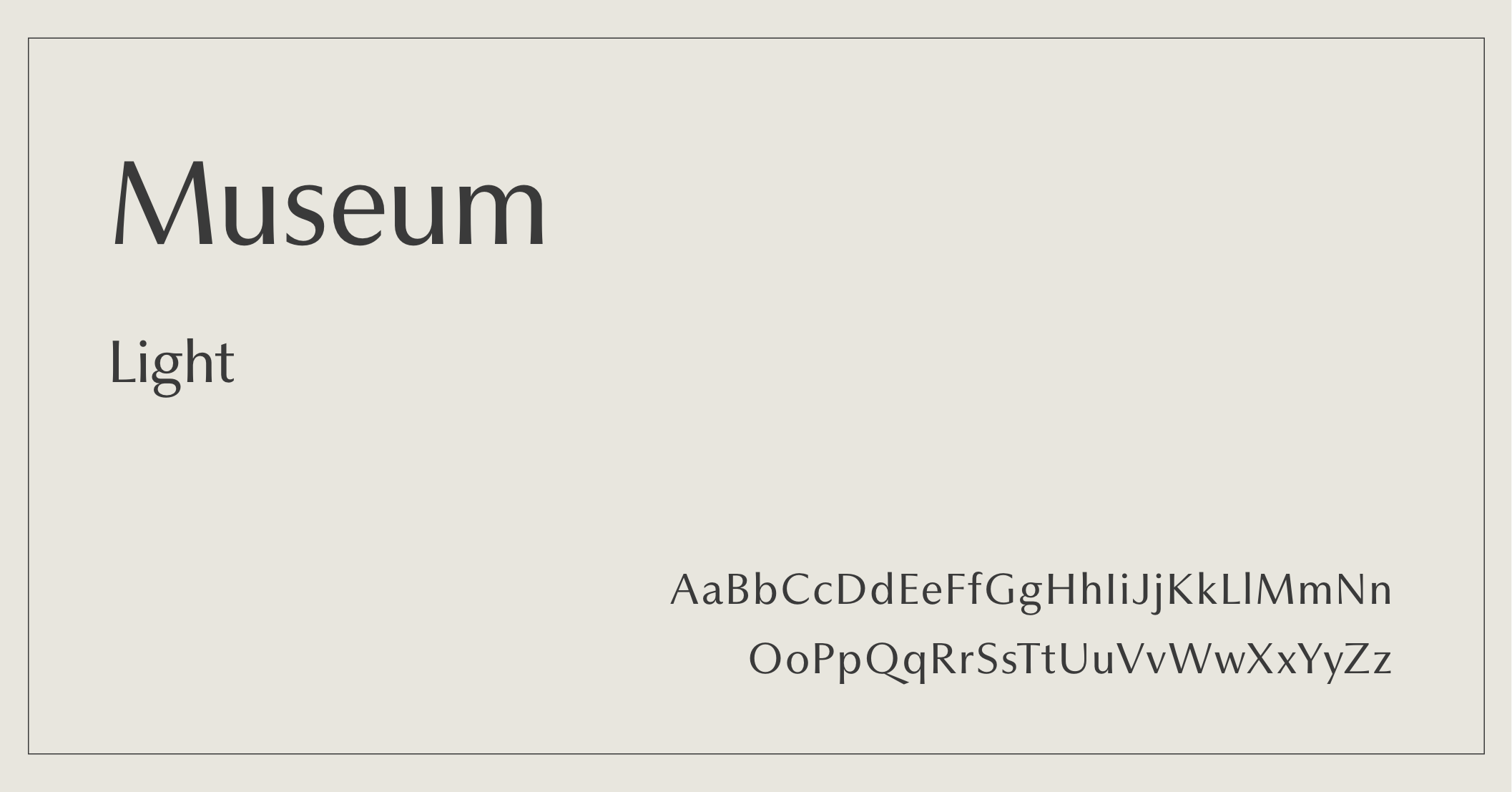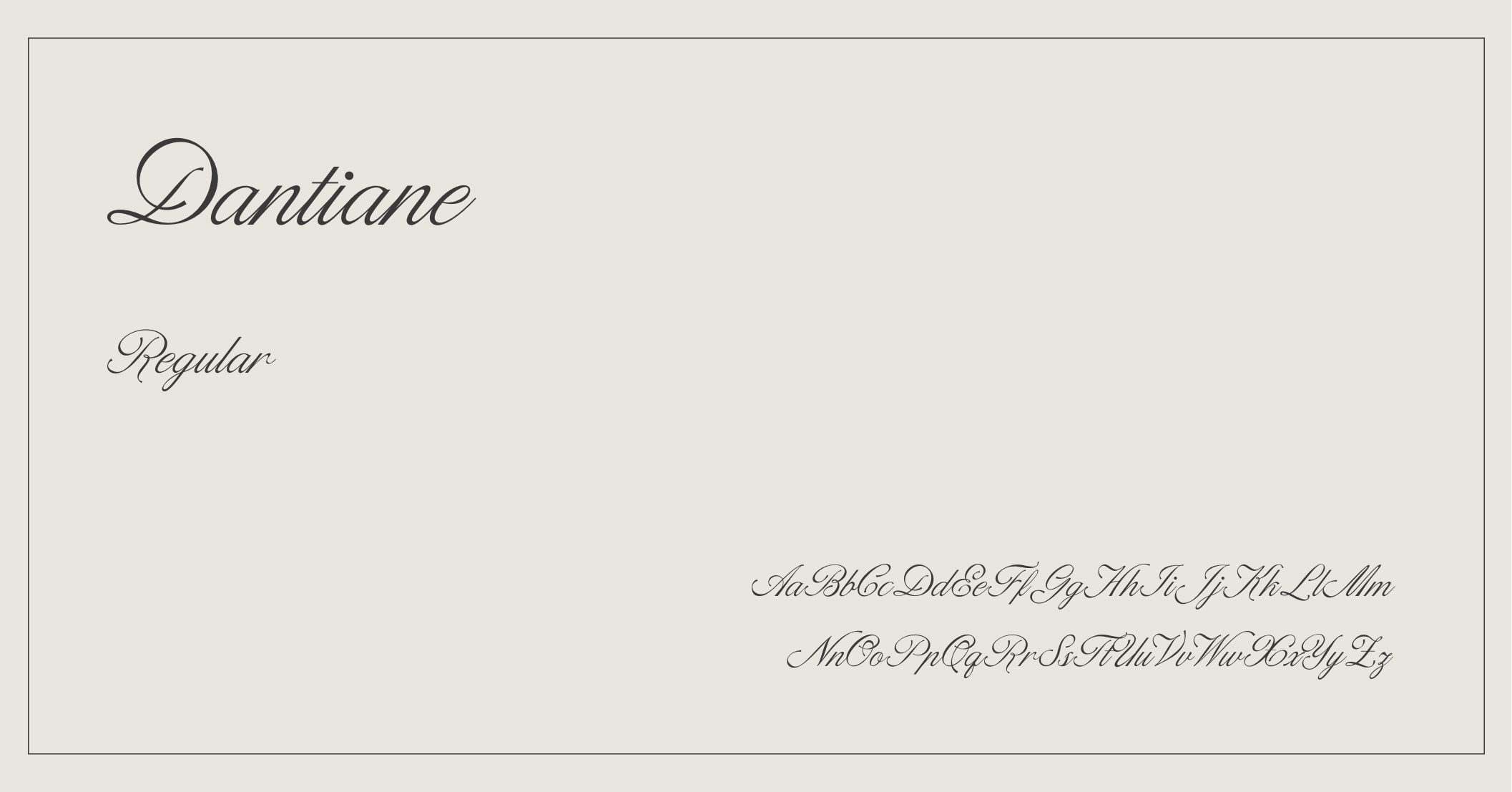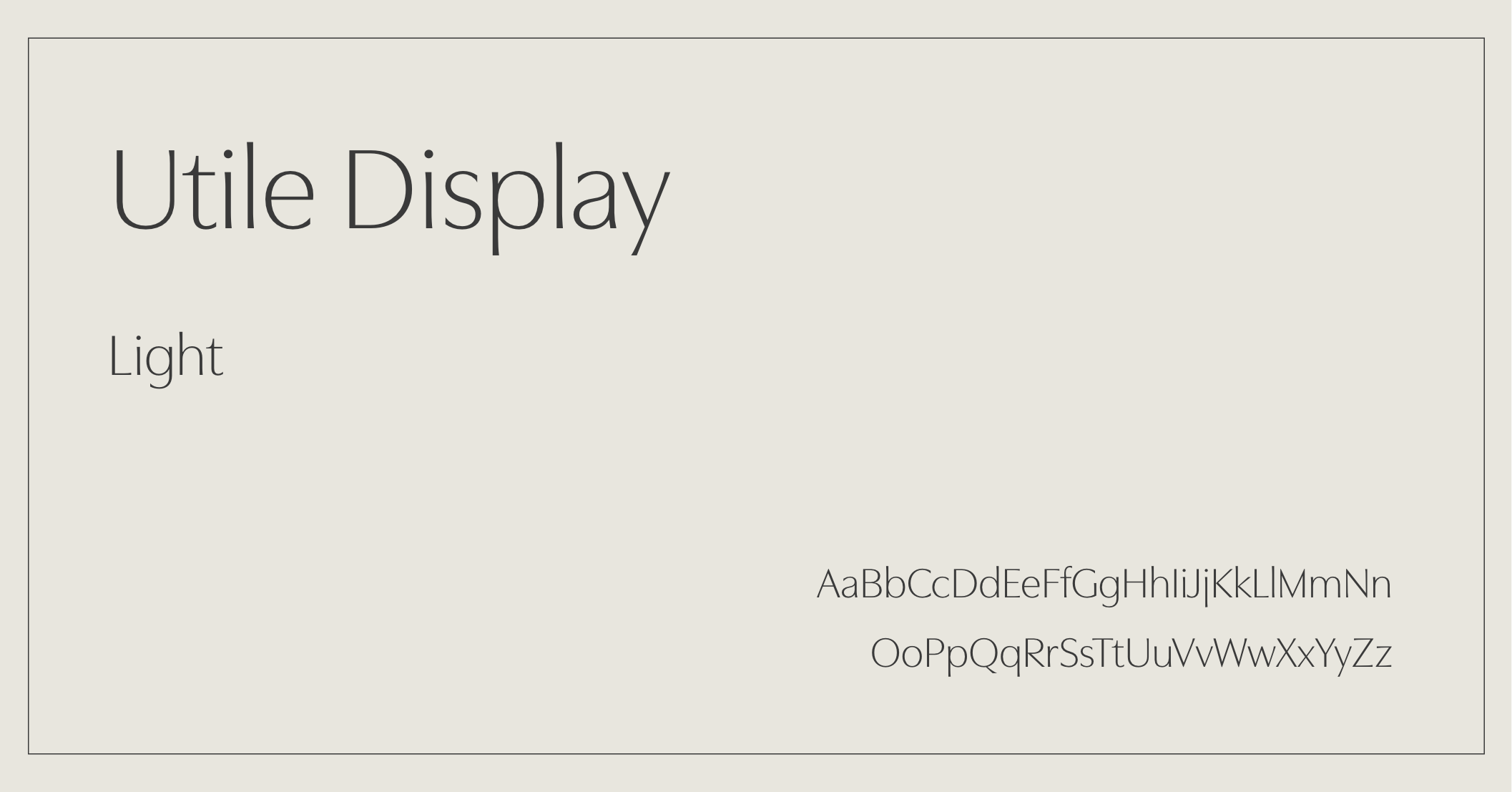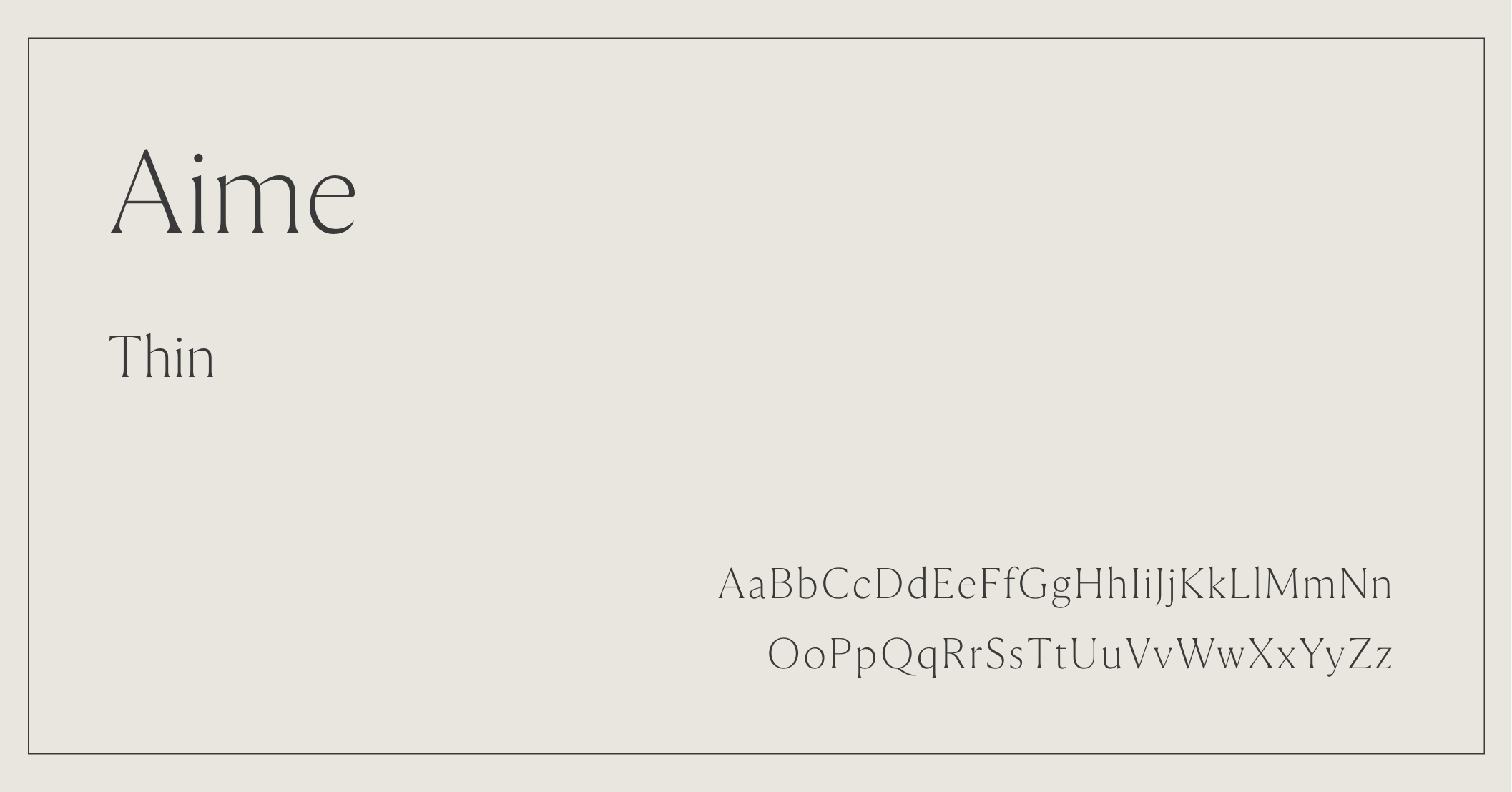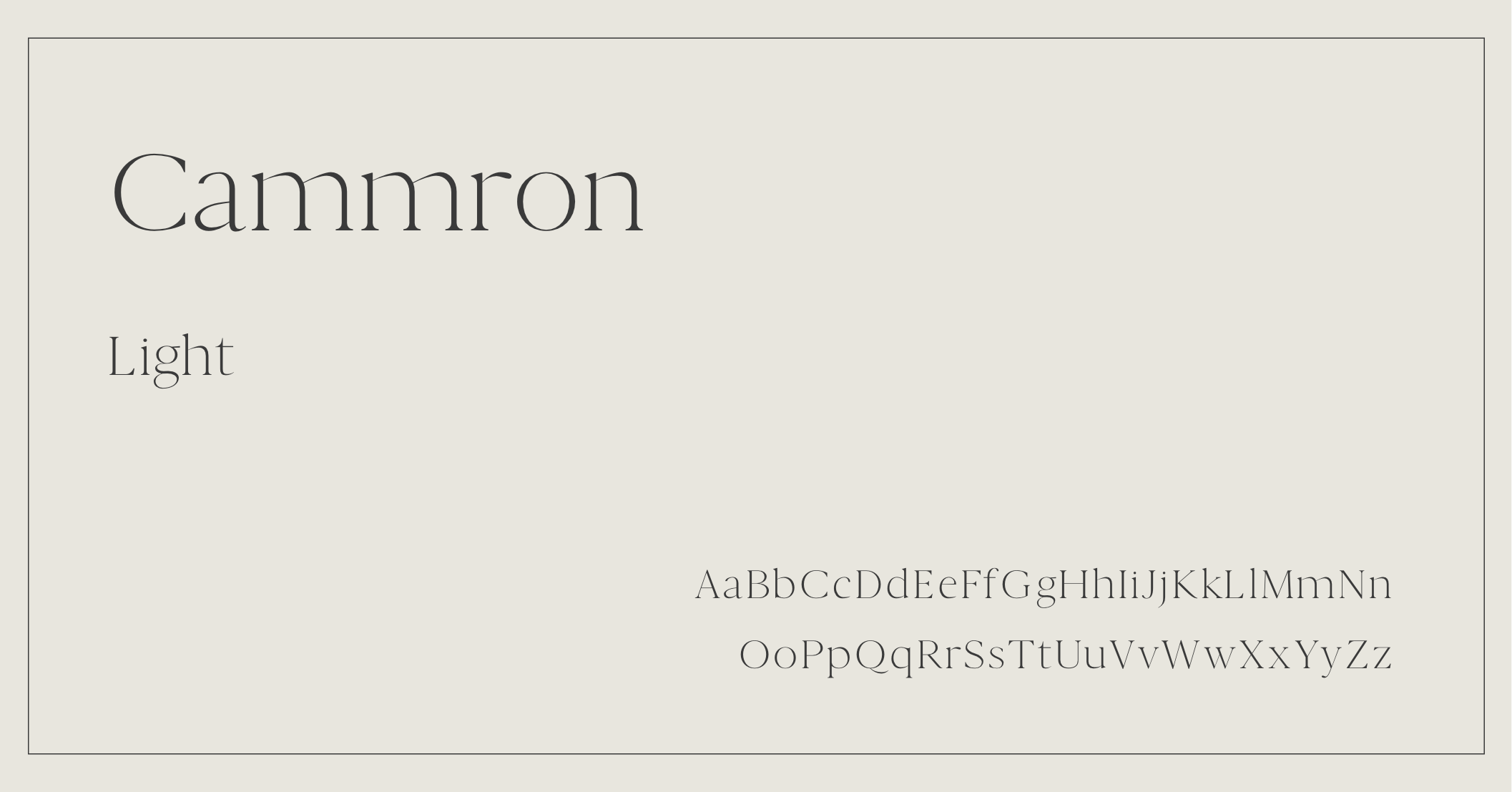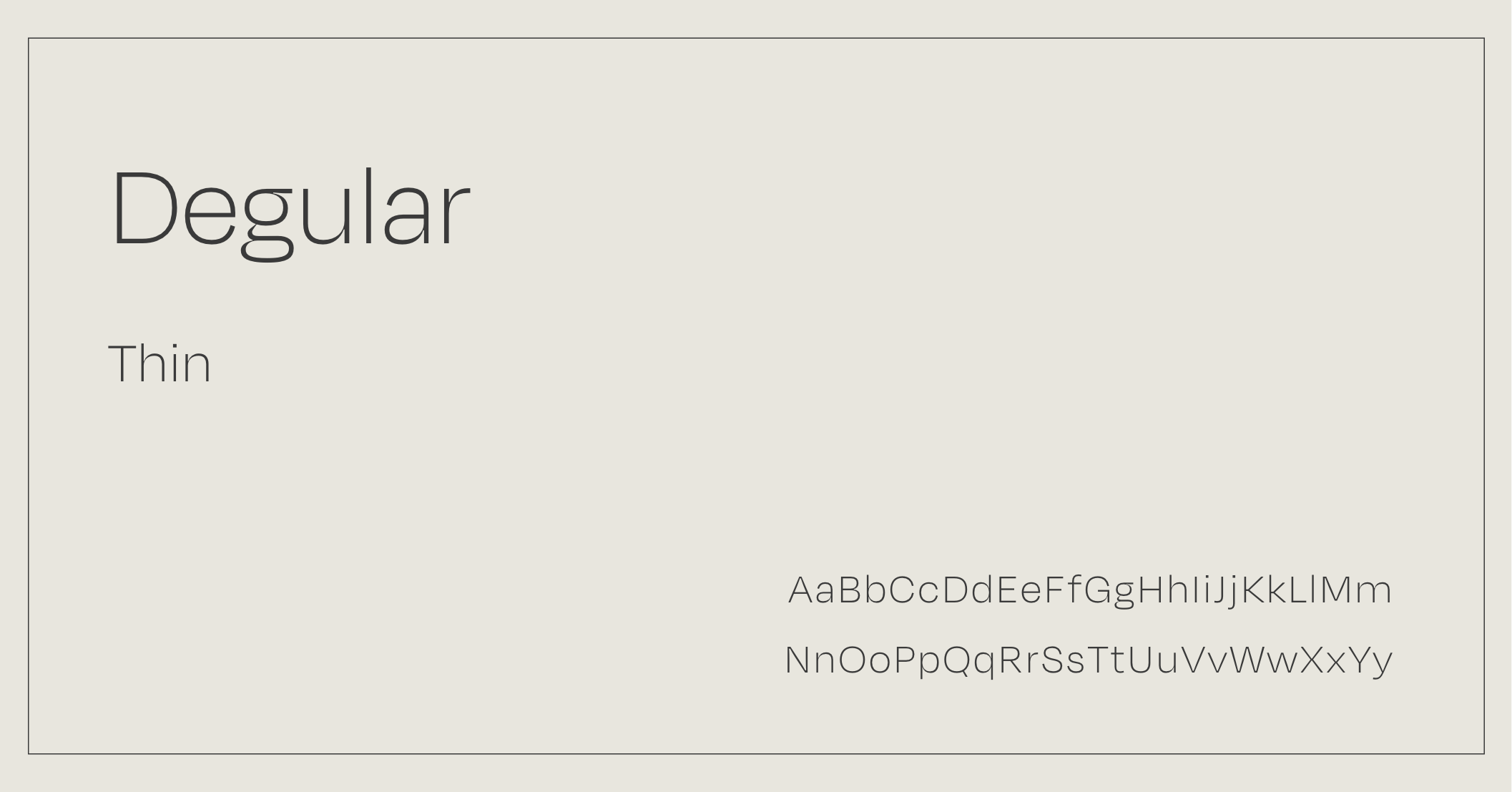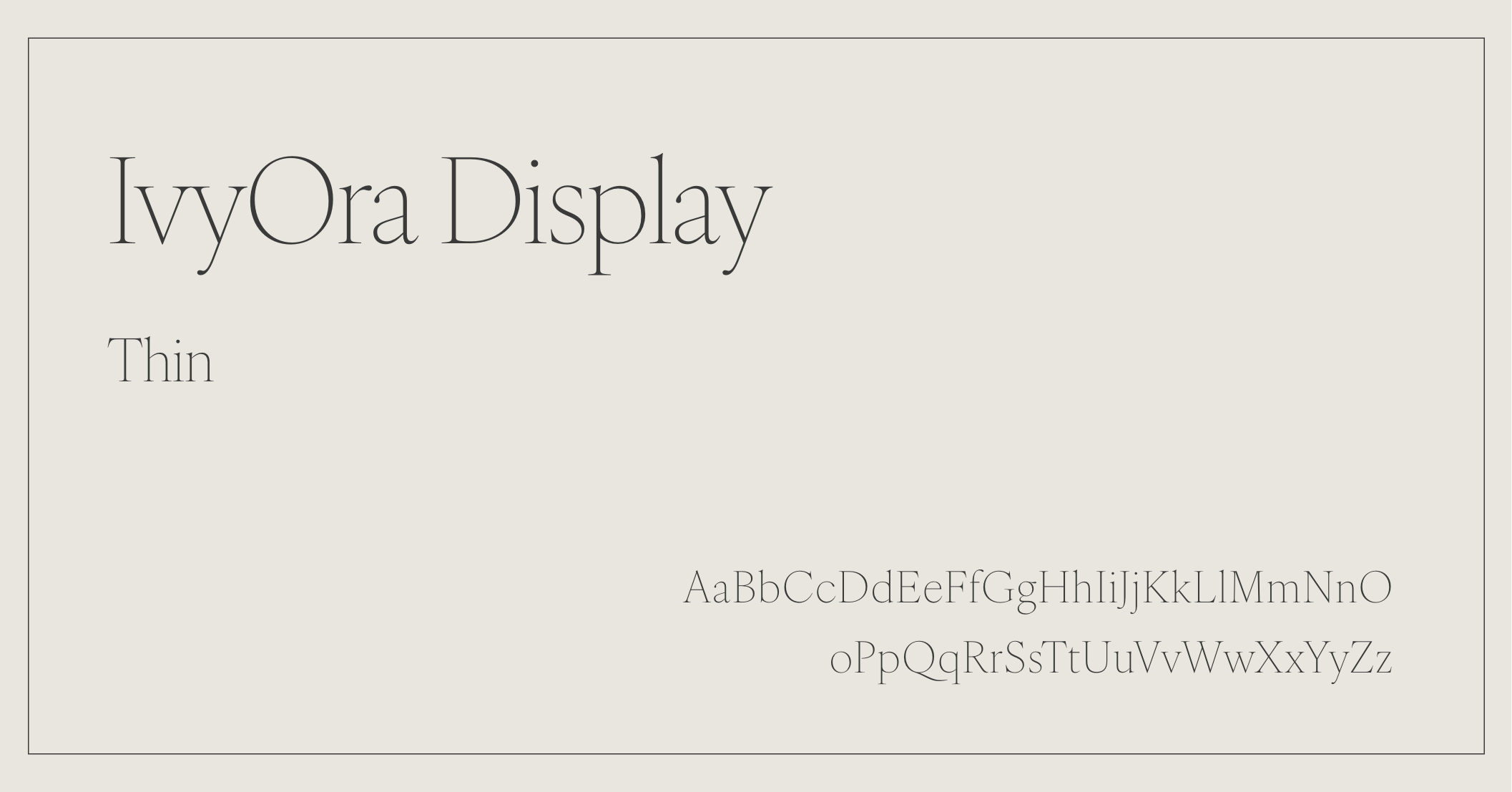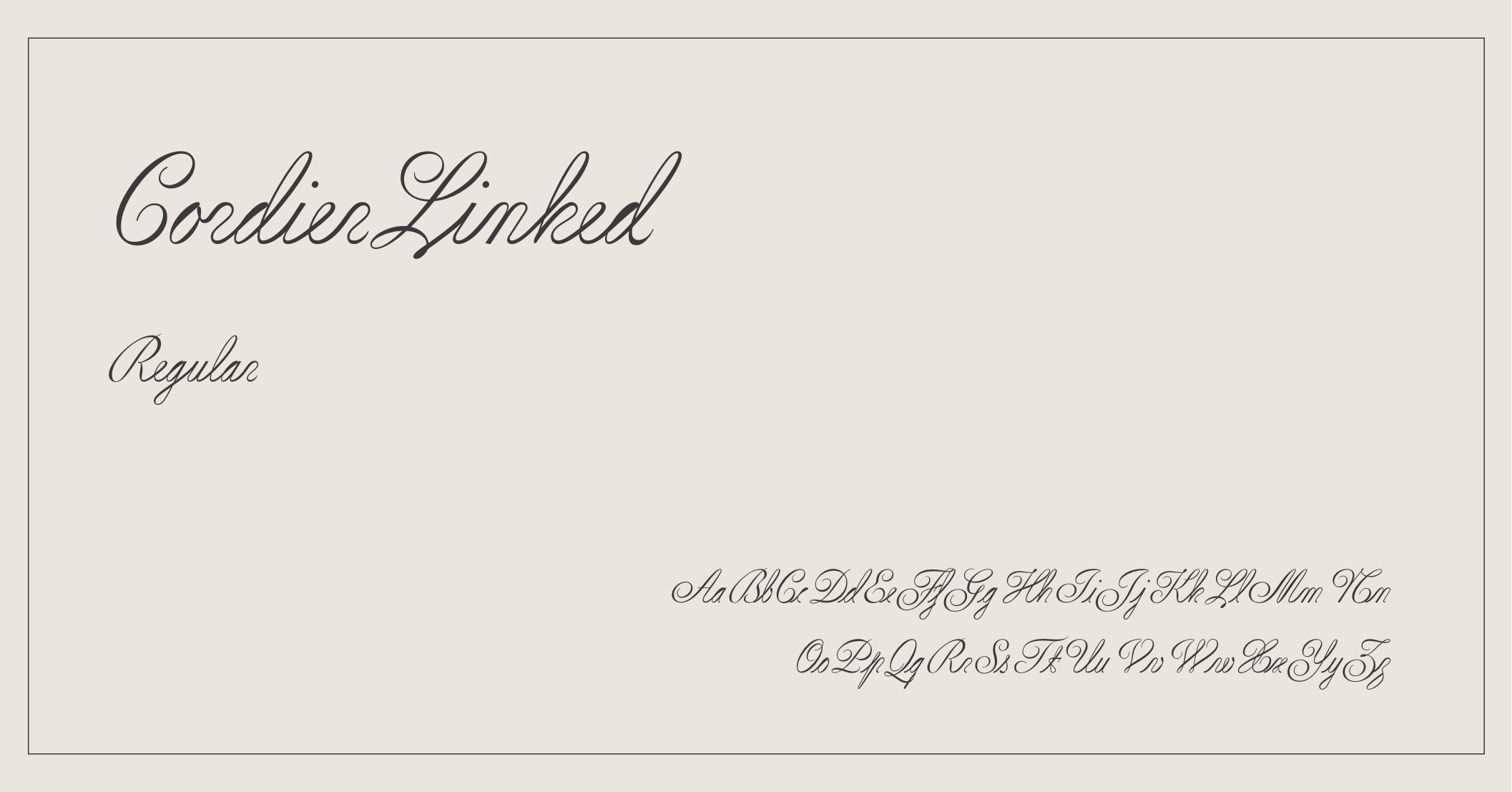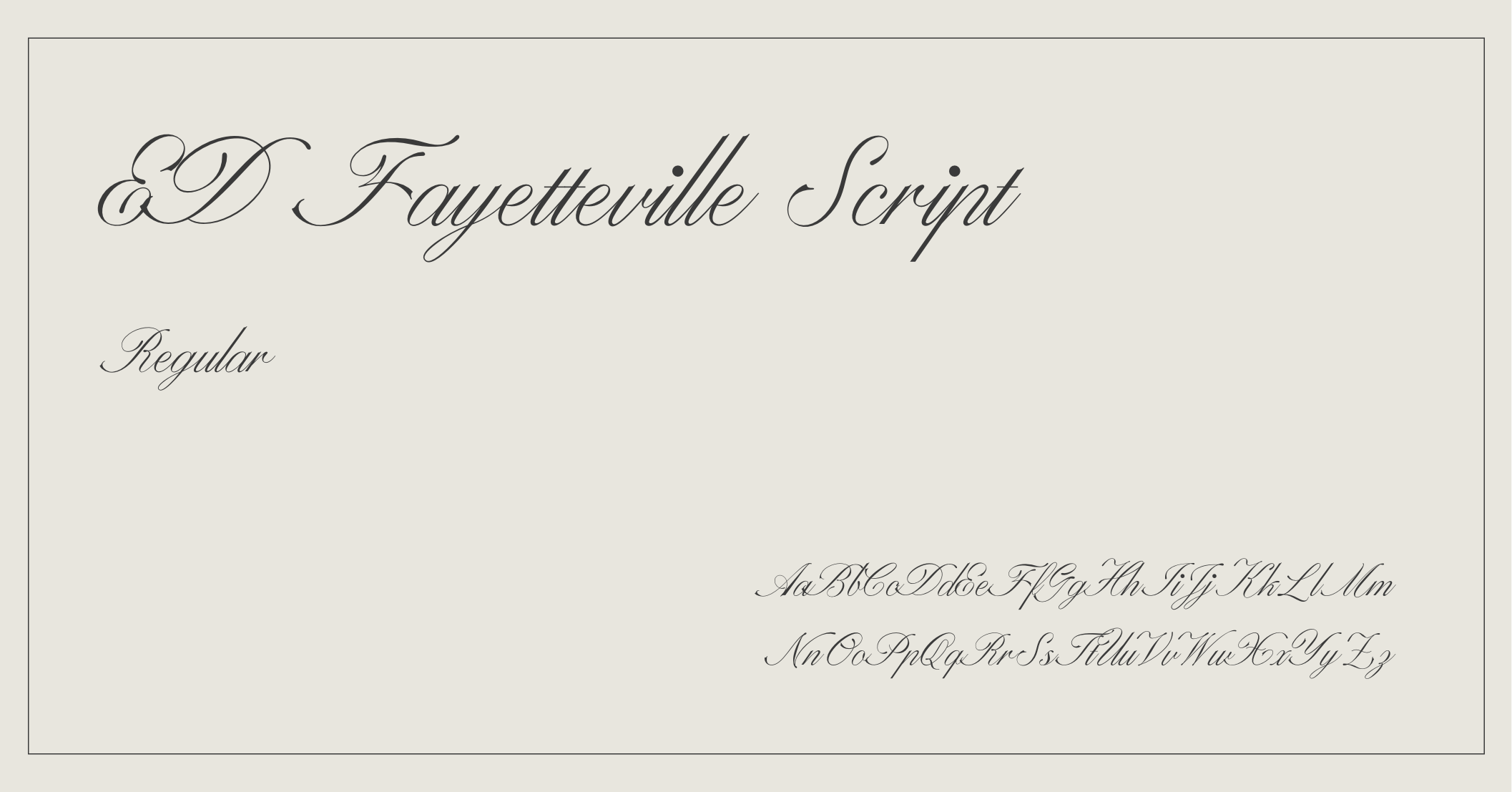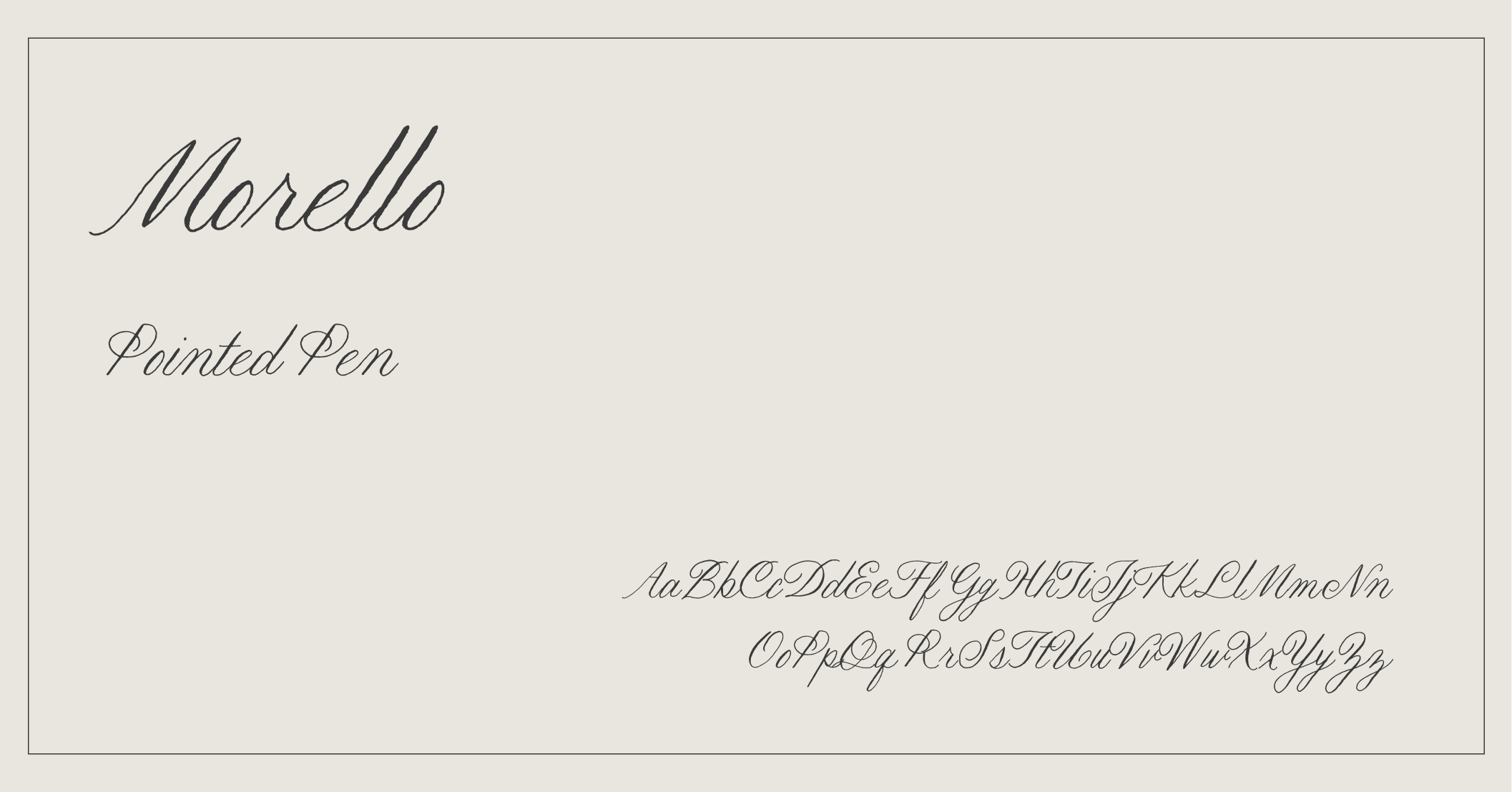
A curated collection of serif, sans serif and script fonts that instantly elevate the look of luxury brands and creative businesses. Bookmark these for later if a rebrand is underway for your photography, wedding planning or interior design business.
Luxury Brand Font Line Up
Spezia Serif Script Luxury Font
Spezia Serif combines traditional character with modern clarity. This font offers precise expression and is available with over 100 font weights. Whether you’re using this for your primary logo for your rebrand or as a paragraph text, you’ve got ample solutions at your fingertips.
I love this luxury serif font paired with a sans serif, to give a refined, contemporary feel to an elegant brand.
Aime Serif
Aime is a refined luxury font that effortlessly blends modern design with timeless elements. Whether you use this font in uppercase or case sensitive, it evokes a sense of calmness, stillness and restraint.
This elegant and luxurious font would be perfect for a luxury wedding planner, elopement photographer or fashion PR agency.
Cammron Serif Font
Cammron is a serif font that feels delicate, modern and classic all at once. It has a nice feminine feel to it, and I especially adore it in lowercase or case sensitive, making it perfect for website headings and subheadings.
IvyOra Display Serif Font
I couldn’t resist but share one of the classics, IvyOra Display. It is a regularly used luxury font by designers for a reason – it offers such a chic, editorial look, is available in a variety of weights and looks absolutely stunning when in italics.
If you’re needing a classic workhorse of a headline and subheading font, this is a great option. But just note, it’s widely used across web and print.
Degular Luxury Sans Serif Font
Degular offers a contemporary look and feel, especially in the thinner line weights. I love pairing this contemporary sans serif with a more refined serif to create a beautiful blend for luxury font pairings.
See it in action, we used Degular for the body copy font on this lifestyle and interior design photographer’s website.
Museum Sans Serif
Museum by Pangram is a humanist sans serif typeface that feels elegant and refreshing all at once. With its refined style and variety of weights, you can use this for a logo, headings, packaging and more. A unique spin and concept for a luxury brand in the making!
Mona Sans
Mona Sans is a Google font that offers a refined, bespoke feel to it. I love this font for captions and paragraph text, paired back to elegant, classic serifs. This sans serif is an under-the-radar font in my opinion, offering a chic, contemporary feel to your luxury branding or website design project.
Utile Display Luxury Font
If you are looking for a sans serif font to take center stage for your branding project, Utile Display is a beautiful, contemporary option. It feels refined, modern and elegant – all at once. I especially love the Light and Book font weights for luxury branding projects.
Morello Pen Script Font
Morello Pen offers an understated yet classic feel, perfect for those who want something timeless yet personal. This font is so beautiful and truly unique, I love it especially for brand marks or small moments of unexpected delight.
ED Fayetteville Script Luxury Font
If you’re looking for a timely script font that feels like old-money, ED Fayetteville Script is the one. It offers a smooth and legible script, while feeling elevated, refined and traditional.
Cordier Linked Script Font
Inspired by calligraphy, this reimagined contemporary script typeface is elegant and slightly unexpected. This luxury script font is sitting in my queue, as I’m waiting for the perfect elevated branding project to use it in. I envision a luxury wedding planner, stationery designer or high end interior designer.
Dantiane
Elegant meets intimate with this stylish script font. This font has many stylistic elements to it, so if you’re looking for a show stopping script that’s also legible, this is a great option to consider. Perfect for those wanting a graceful, distinguished and timeless brand.
The most common luxury branding font style is typically a serif. Serifs are known for their classic and timeless approach, making them most commonly presented in elevated and luxury brands. You’ll also see a mix of thoughtful sans serif and elevated script fonts, which is why this blog post highlights a variety of options!